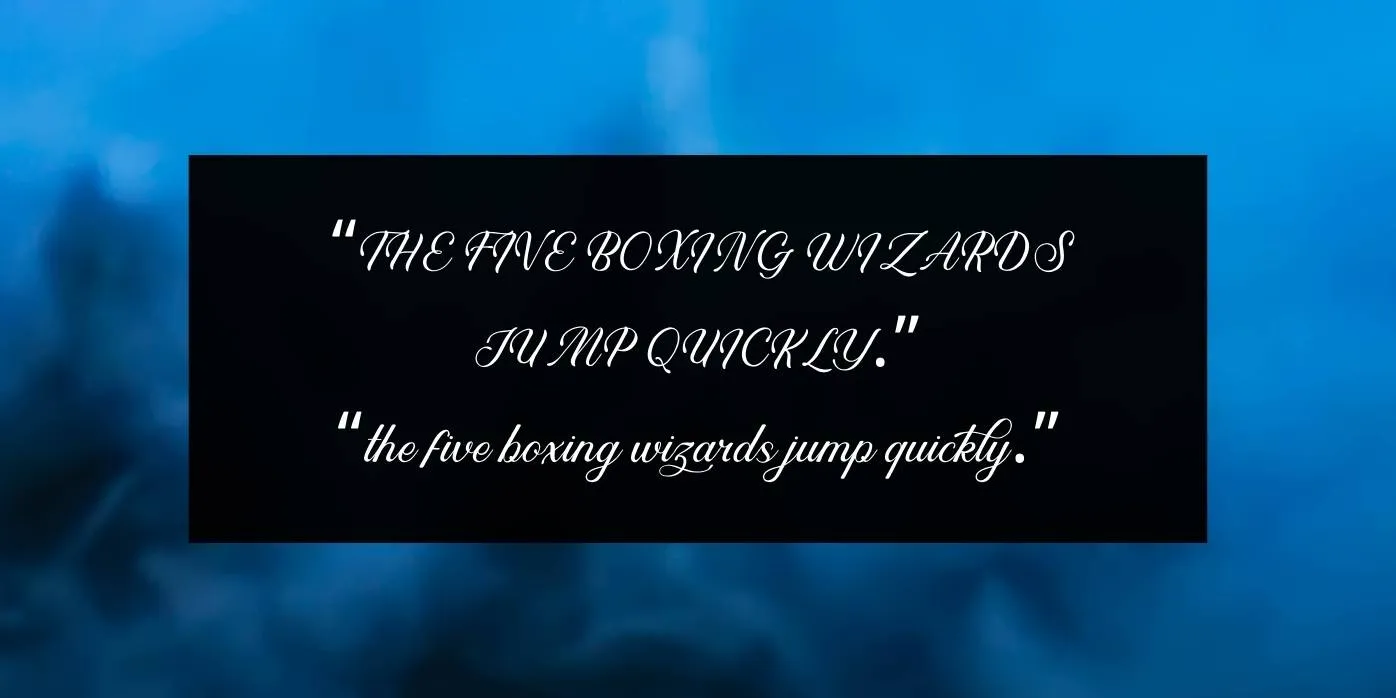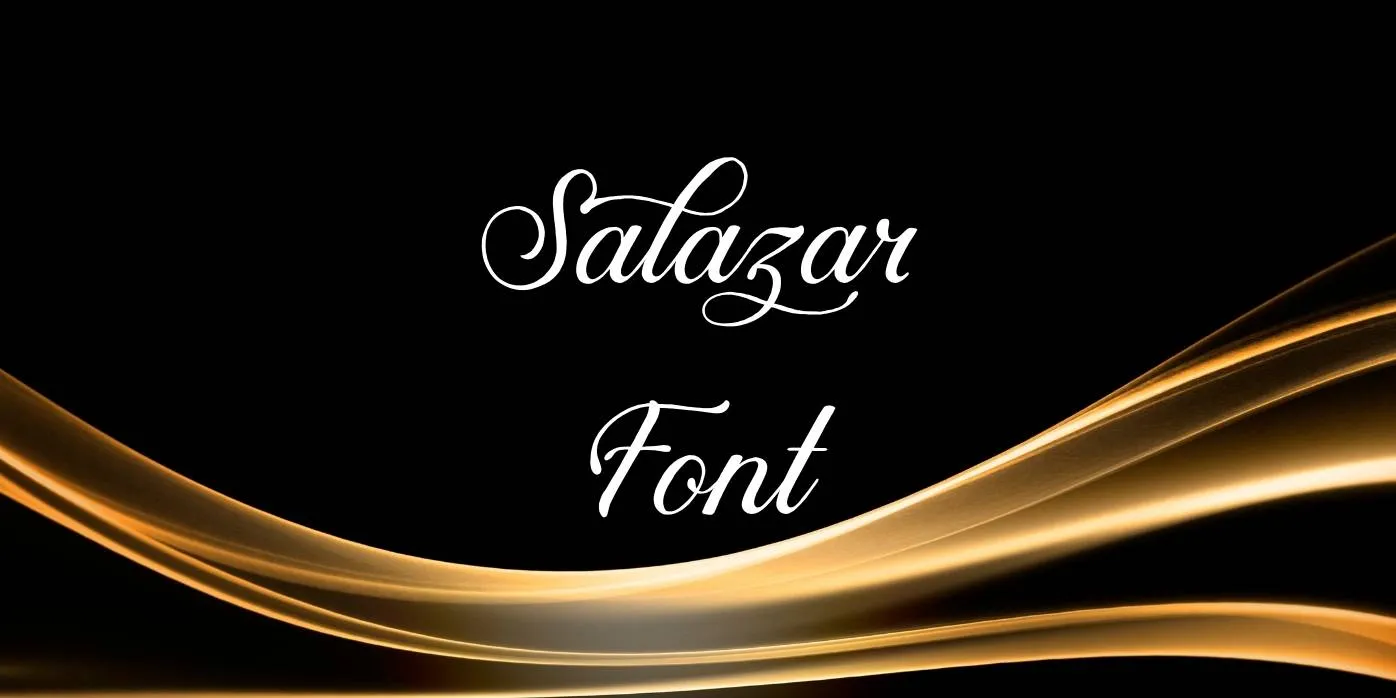
Salazar Font
Salazar Font is an elegant script typeface that was designed by Konstantine Studio in 1902. The Font family includes a variety of different styles, such as light, italic, and bold. The Font is a versatile font that can be used in a variety of different contexts. This Font is available in both TrueType and OpenType formats.